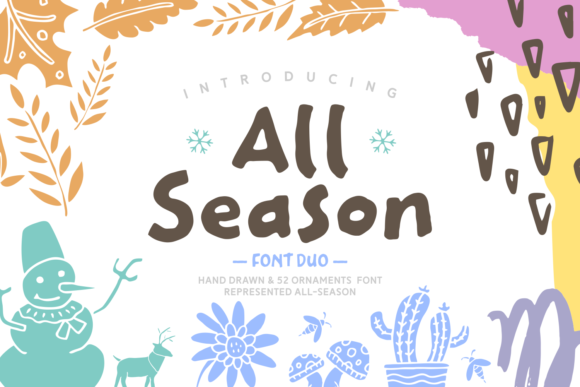
Behold the All Season Font, a stroke of typographic genius that breathes life into your digital creations!
Immerse yourself in the world of All Season, a script font family that captivates with its boldness and striking presence. Its beautifully crafted ornaments, inspired by the ever-changing seasons, add a touch of elegance and charm to your designs.
With All Season as your creative companion, you'll discover endless possibilities for expressing your innermost emotions. Whether crafting heartfelt Valentine's Day letters, designing whimsical invitations, or adding a touch of personality to your branding, this font family is your trusted ally.
Unleash your creativity and elevate your designs to new heights with All Season. Let your words dance and your ideas flourish as you weave enchanting stories through the power of typography.
Embrace the All Season Font today and embark on a journey of visual storytelling that leaves a lasting impression.